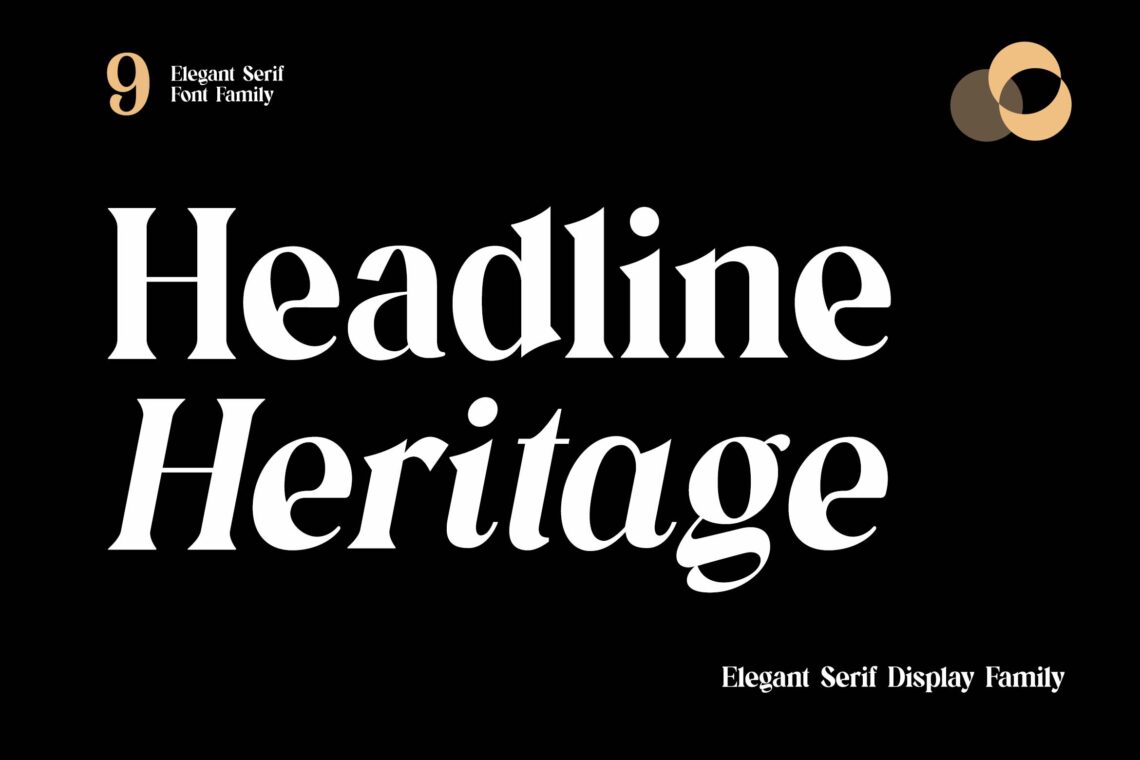
When it comes to crafting a memorable and professional design, the choice of font plays a pivotal role. Typography isn’t just about text; it’s about creating a visual identity that resonates with your audience. Whether you’re designing a website, a logo, or a business card, the right font can elevate your project and give it the personality it needs.
UI Creative offers a fantastic collection of fonts that can cater to a wide range of design needs. With 13 distinct font types available for purchase, you can be sure to find the perfect match for your creative project. Let’s explore the variety of fonts offered by UI Creative and how they can enhance your design endeavors.
Diverse Font Styles to Suit Every Need
UI Creative offers an impressive selection of fonts, each designed to serve different purposes and design aesthetics. The collection includes:
1. Blackletter – Ideal for projects requiring a touch of historical elegance or gothic flair, perfect for premium branding and specialized designs.
Chigger Dragon Blackletter Font
2. Calligraphy – Perfect for invitations, logos, or projects needing a personal and artistic touch. It evokes a sense of creativity and sophistication.
Hiro Misake Brush Japanese Font
3. Display – These fonts are designed to stand out. Great for large headings or bold statements, display fonts make your messages more impactful.
Headline Heritage Elegant Serif Display Font
4. Grotesk – Featuring clean lines and minimalistic design, grotesk fonts offer a modern, timeless appeal suitable for corporate branding and tech startups.
Bombard Grotesk Modern Font Family
5. Handwriting – These fonts add a human element to designs, making them ideal for informal branding, personal blogs, or creative projects.
Grace Signature Bursh Signature Font
6. Logo – As the name suggests, these fonts are tailor-made for logo design. They help build unique brand identities with custom-crafted letterforms.
Behowled Classic Modern Serif Display
7. Modern – Sleek, sharp, and stylish, modern fonts are perfect for tech, corporate, and minimalist designs.
Godlikeness Modern Sans Serif Font Family
8. Retro – Bring a sense of nostalgia and fun to your design projects with retro fonts, ideal for vintage branding or anything with a playful theme.
Peacock Showier Retro Serif Display Font
9. Sans Serif – Clean, simple, and readable, sans serif fonts are the backbone of web design, offering a sleek look that’s easy to navigate for any project.
Modular Black Sans Modern Sans Serif Family Font
10. Script – Flowing and cursive, script fonts evoke elegance and artistry, making them ideal for wedding invitations, luxury products, and high-end branding.
Prestige Legacy Elegant Classy Font
11. Serif – Serif fonts are classic, often used in traditional print media. They add a sense of professionalism and credibility to corporate identities and editorial work.
Regalia Monarch Luxury Serif Font
12. Slab Serif – With their thick, block-like serifs, slab serif fonts give designs a bold, strong presence. Perfect for headlines, advertising, and eye-catching projects.
Slab Soldier Textured Font
13. Vintage – Vintage fonts transport your designs back in time, ideal for brands that want to evoke nostalgia or authenticity in their messaging.
Montages Retro Vintage Font
These fonts are not only versatile but also ideal for a wide range of applications, from corporate branding and business presentations to personal projects and creative endeavors. Whether you’re designing a website, a business brochure, an e-commerce store, or social media content, selecting the right font can drastically improve your design’s appeal and functionality.
Why Typography Matters in Design
Typography isn’t just a visual element—it’s a critical part of your brand’s communication. Different fonts evoke different emotions and can affect how your message is perceived. For example, modern fonts might convey innovation and simplicity, while vintage fonts might evoke a sense of nostalgia and authenticity.
Using the right typeface helps establish your brand’s personality and makes your message clearer to your audience. The 13 font types available at UI Creative are versatile enough to fit any design, ensuring that your creative projects not only look stunning but also communicate effectively.